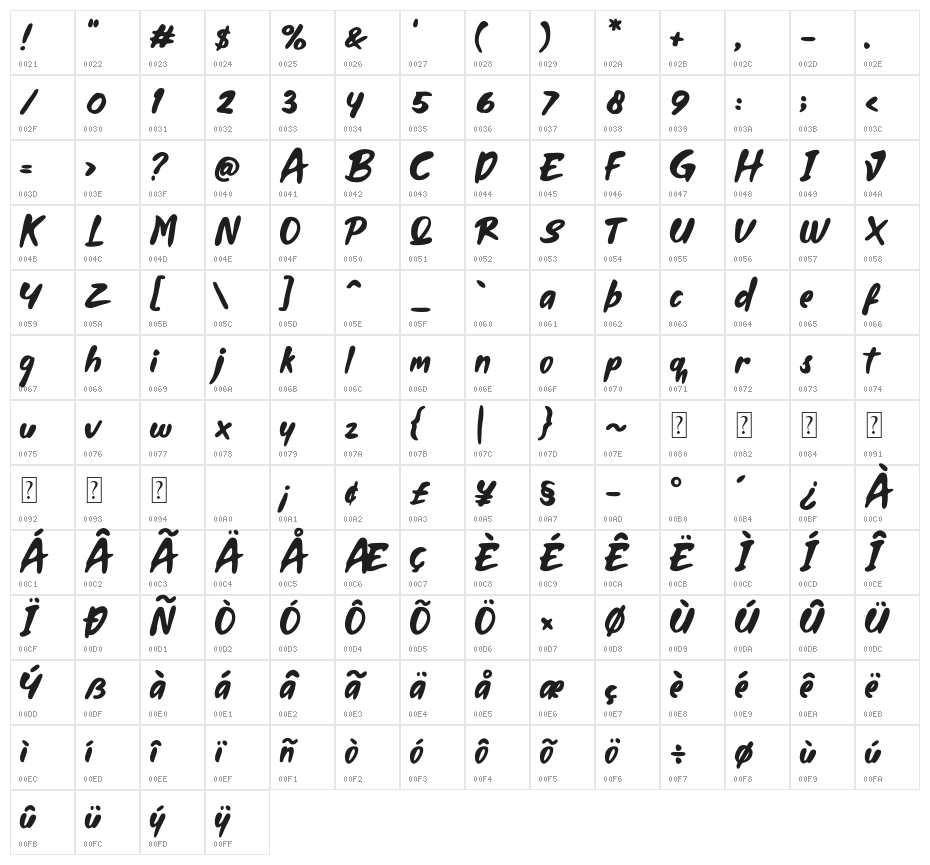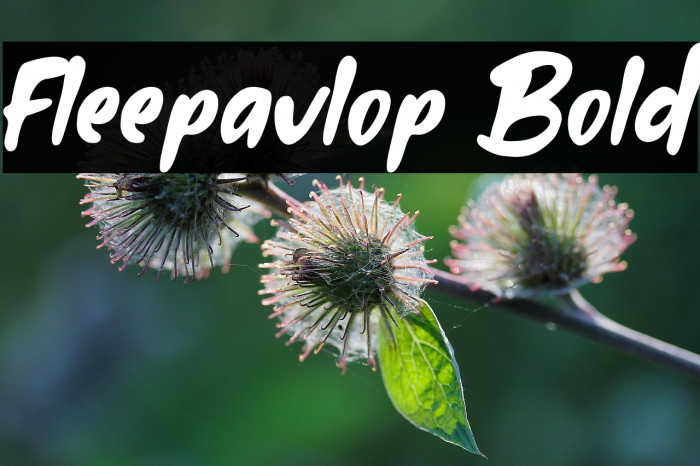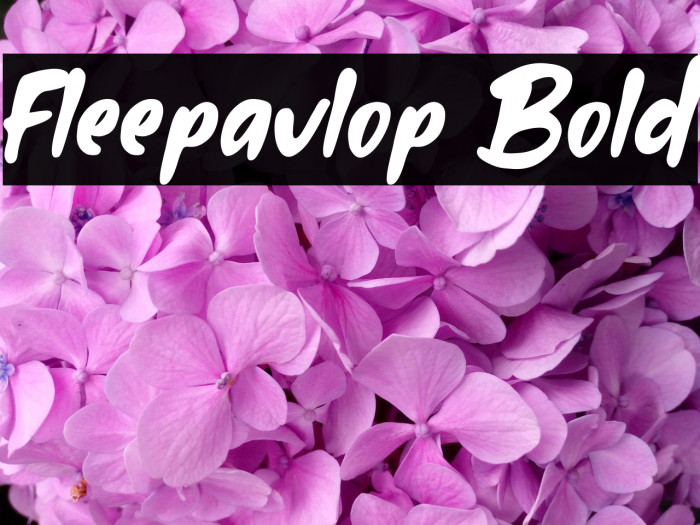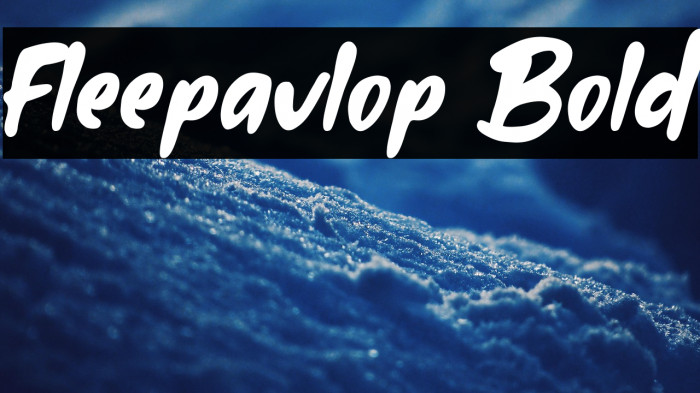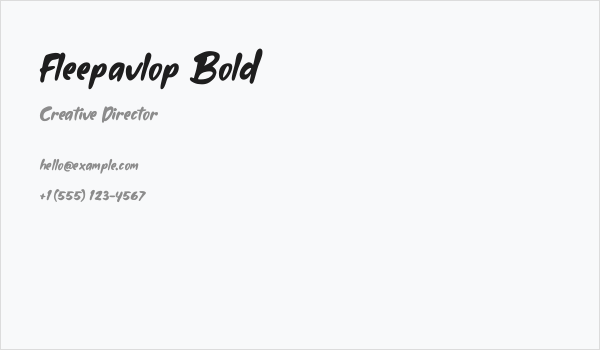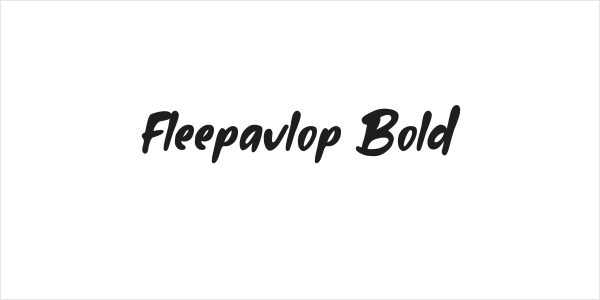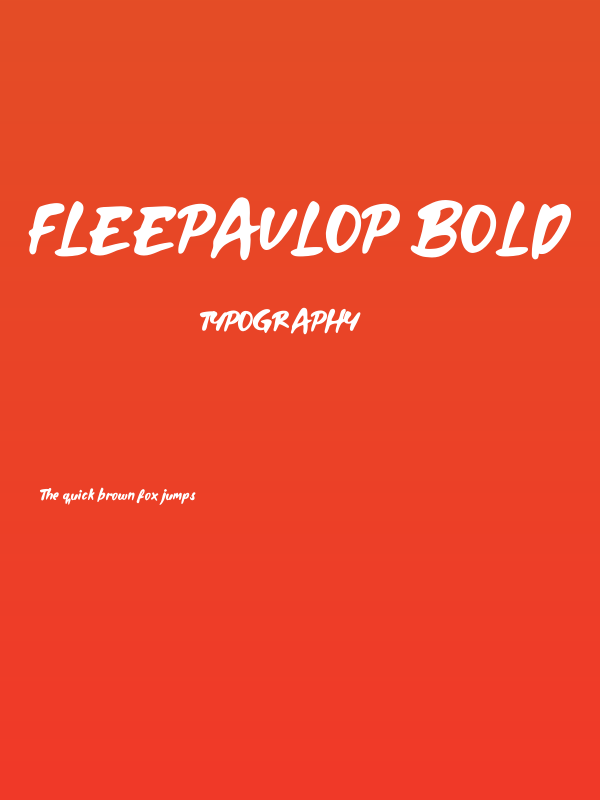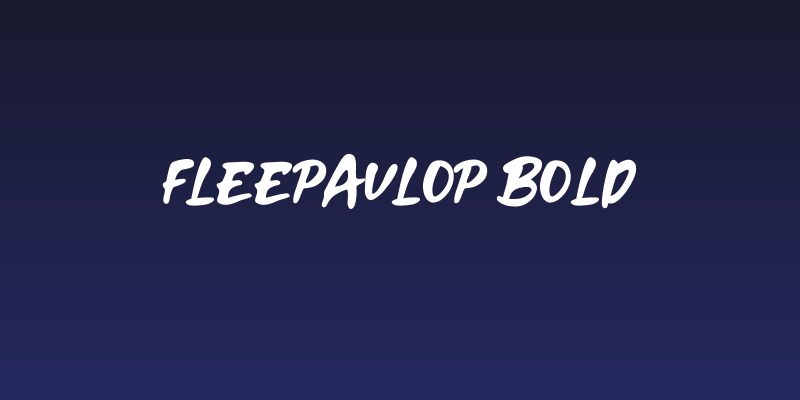
Fleepavlop Bold Font
Fleepavlop Bold Description
This bold, handwritten font exudes a playful and energetic vibe, characterized by its thick strokes and fluid curves. The letters are slightly slanted, giving a dynamic and informal appearance. The uppercase and lowercase characters maintain a consistent style, with rounded edges and a sense of movement. The numbers and special characters follow the same design principles, ensuring a cohesive look across all elements. This font is ideal for projects that require a personal touch, such as invitations, posters, or branding materials that aim to convey a sense of creativity and approachability.